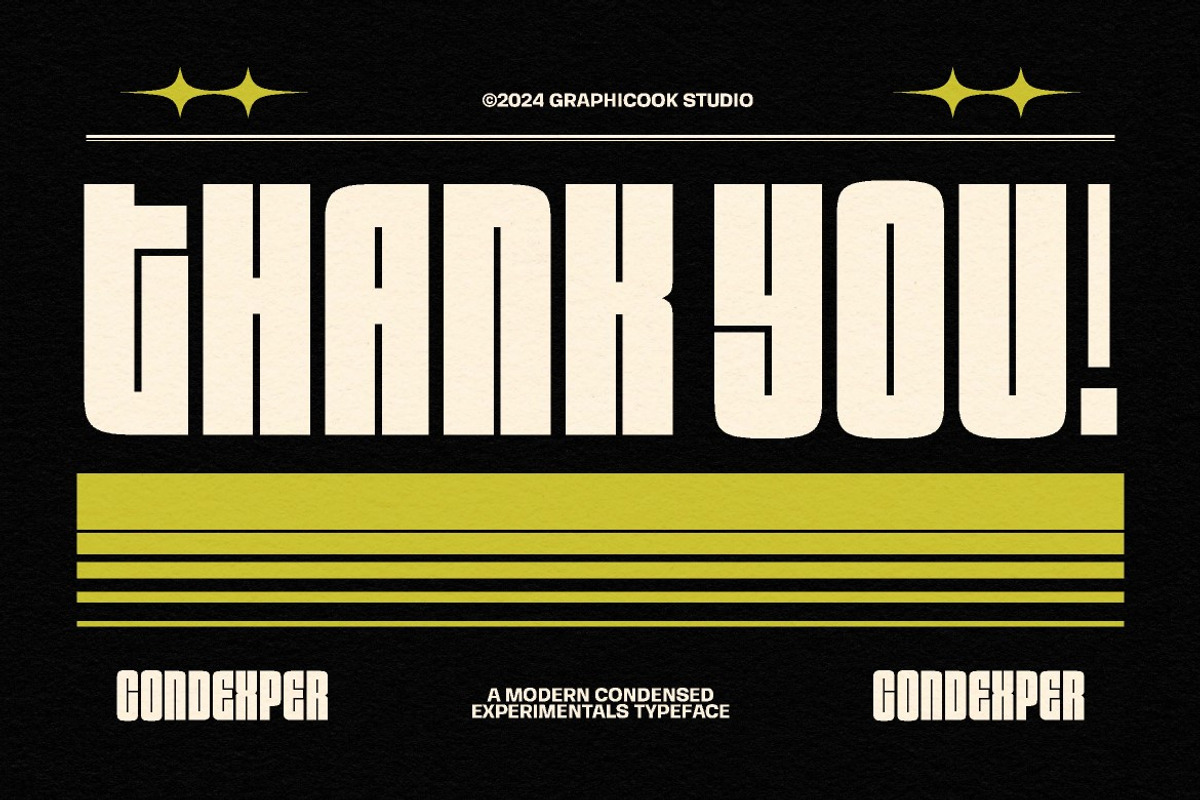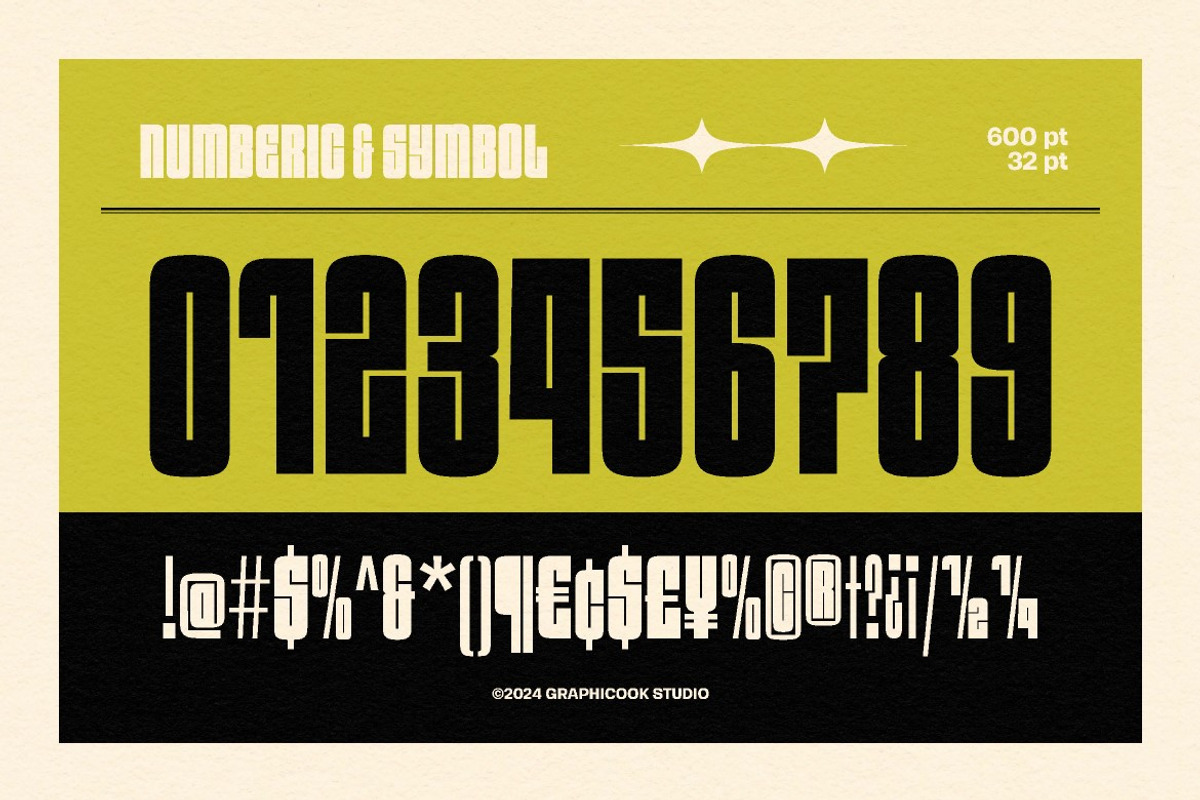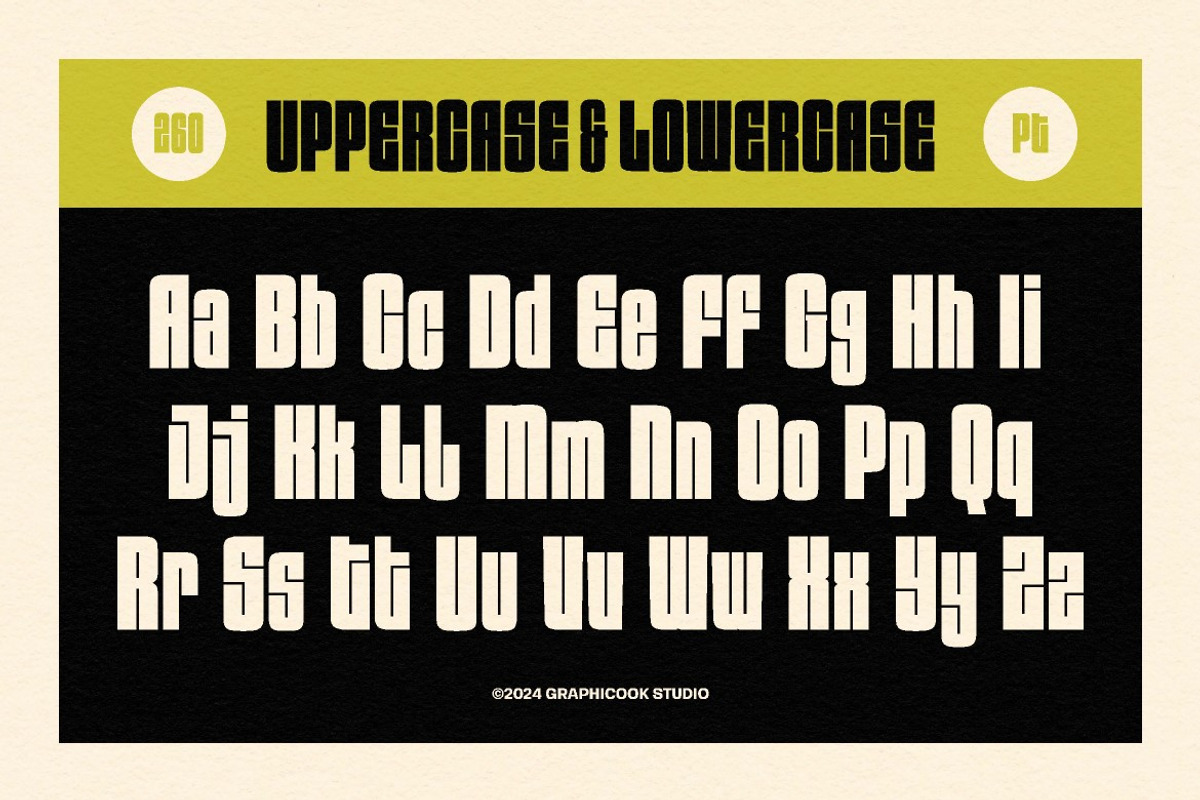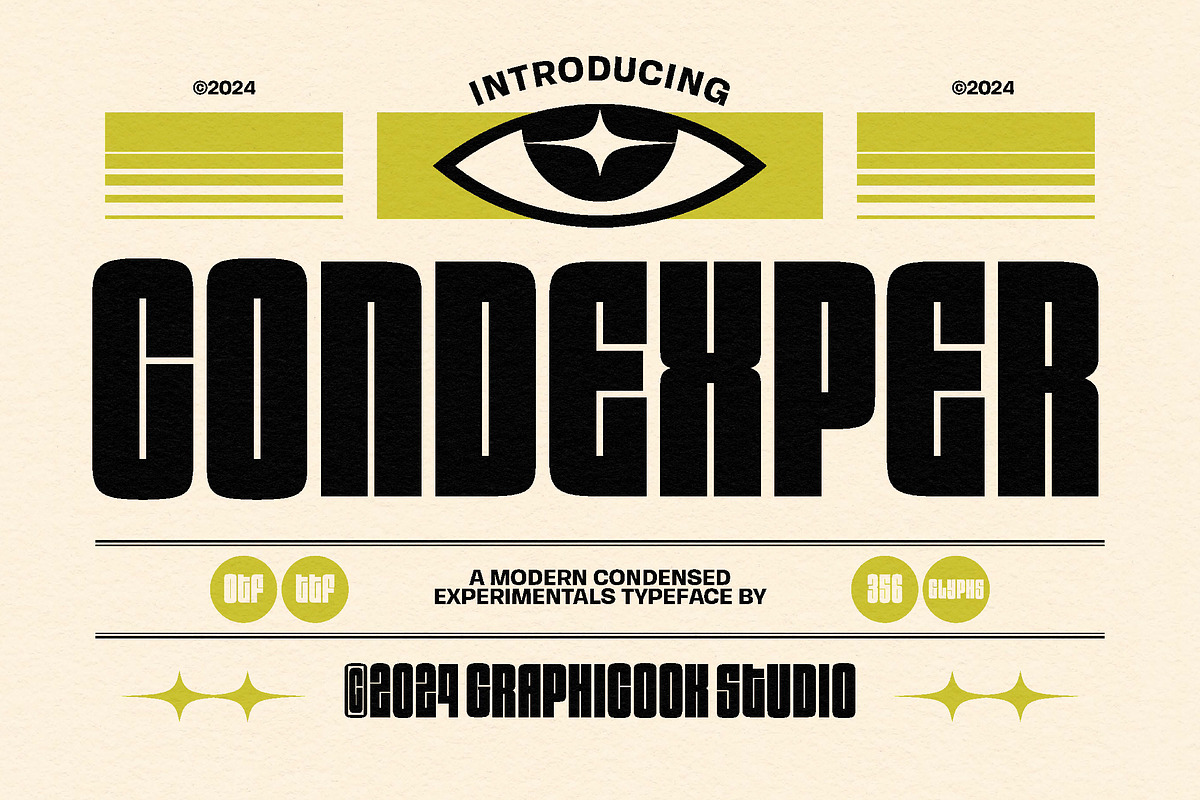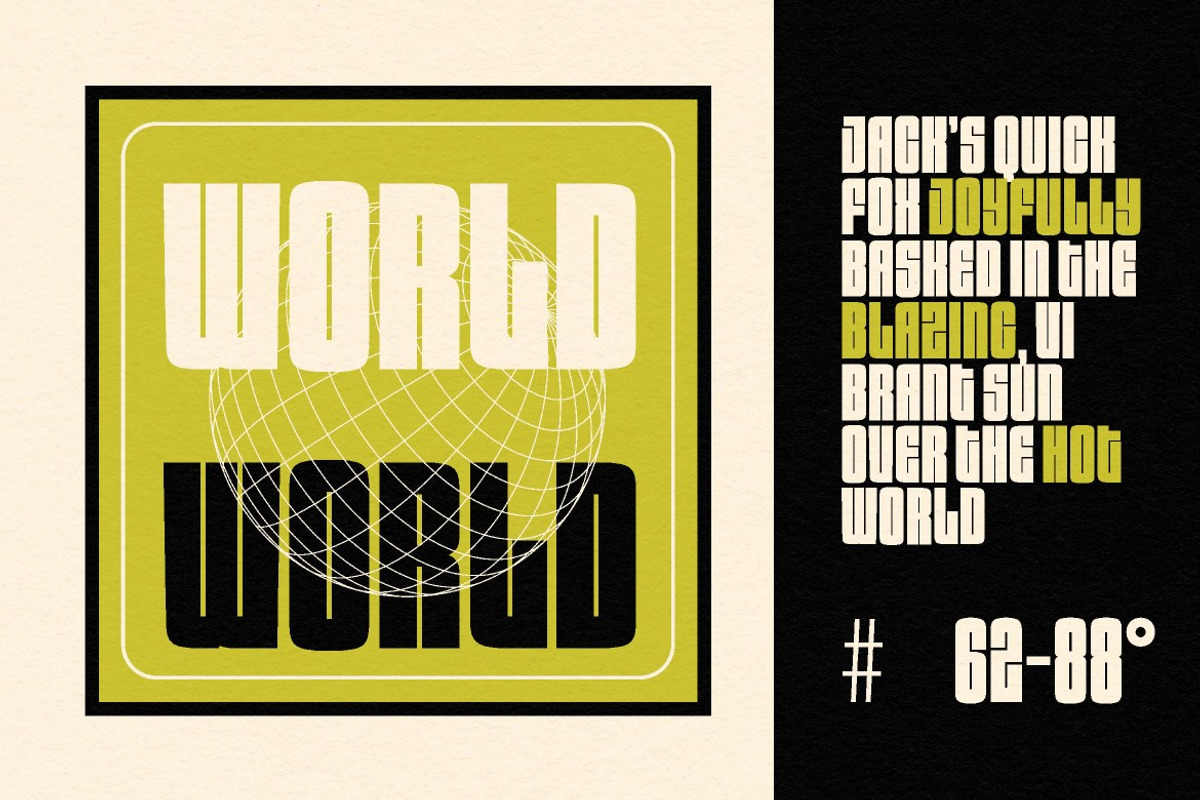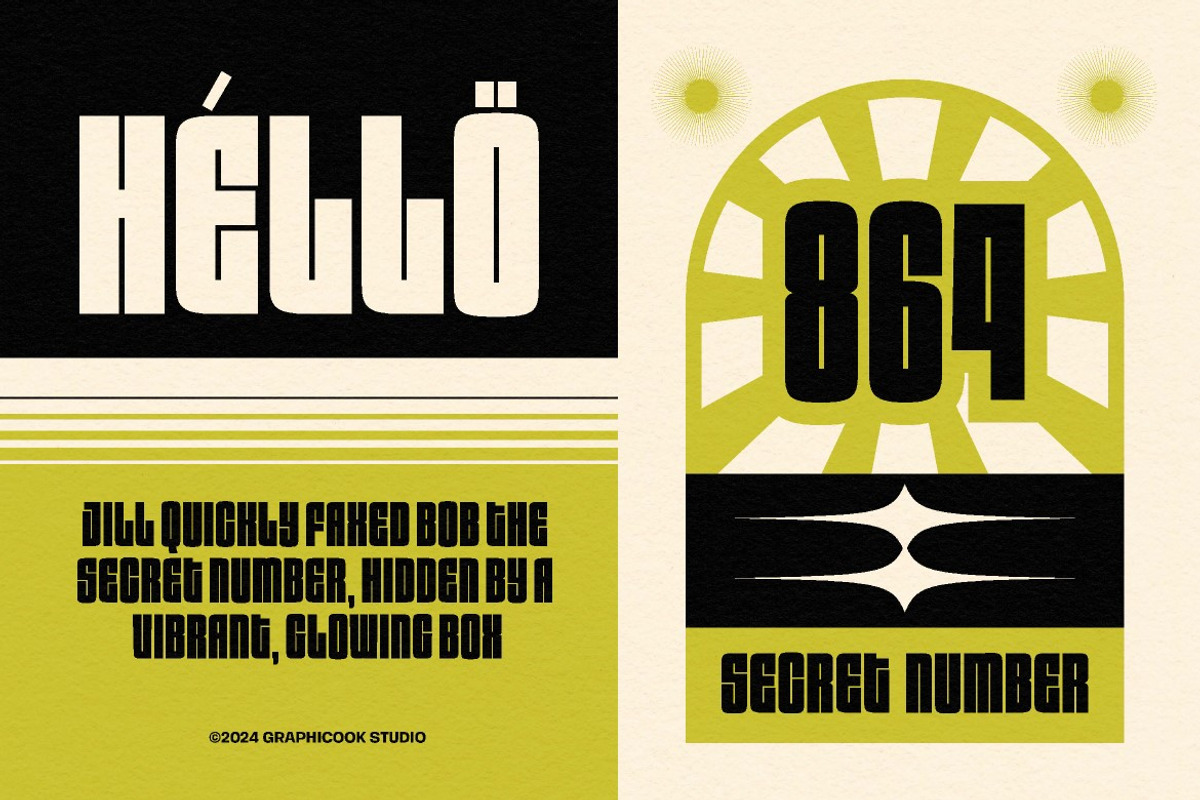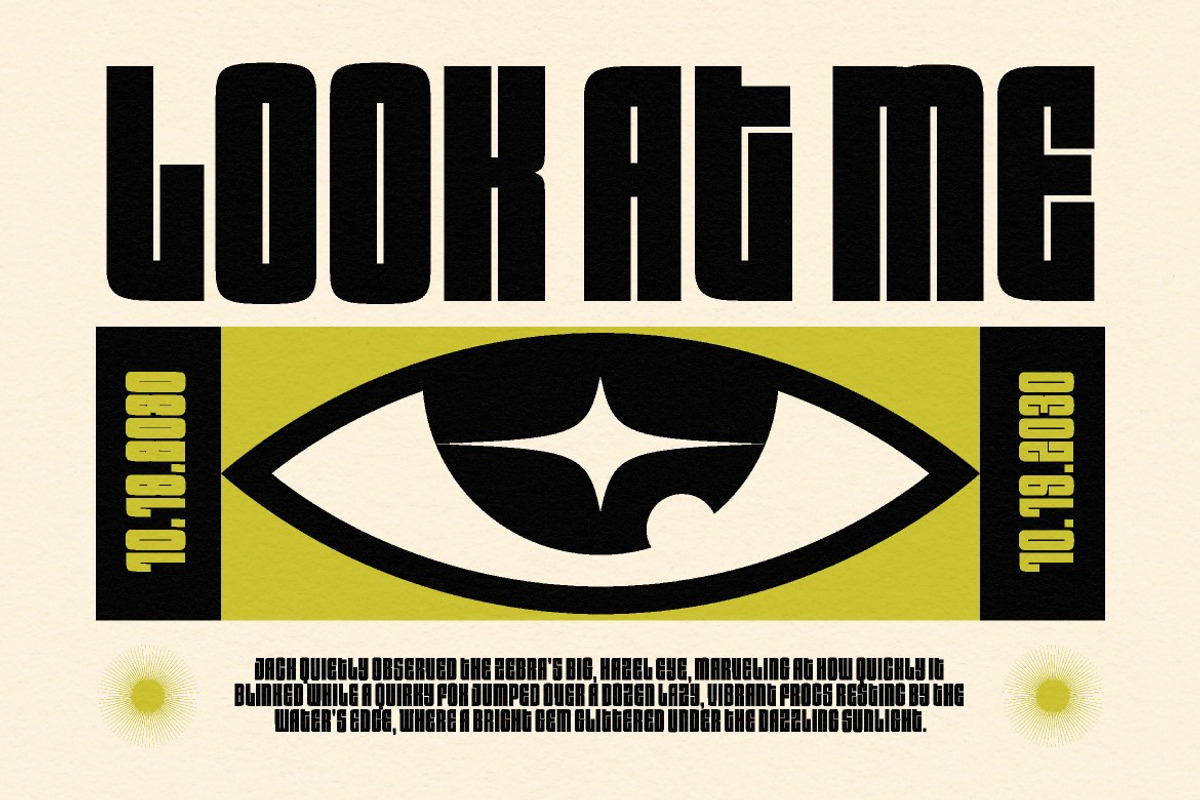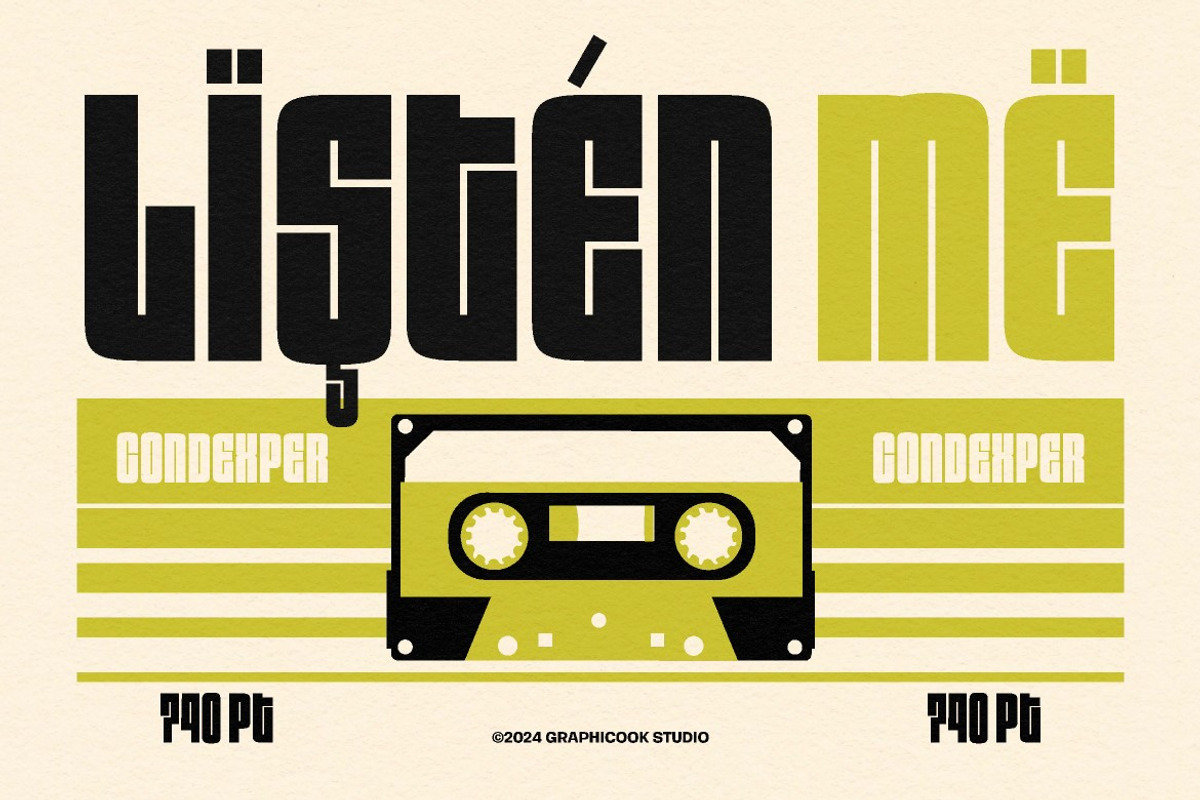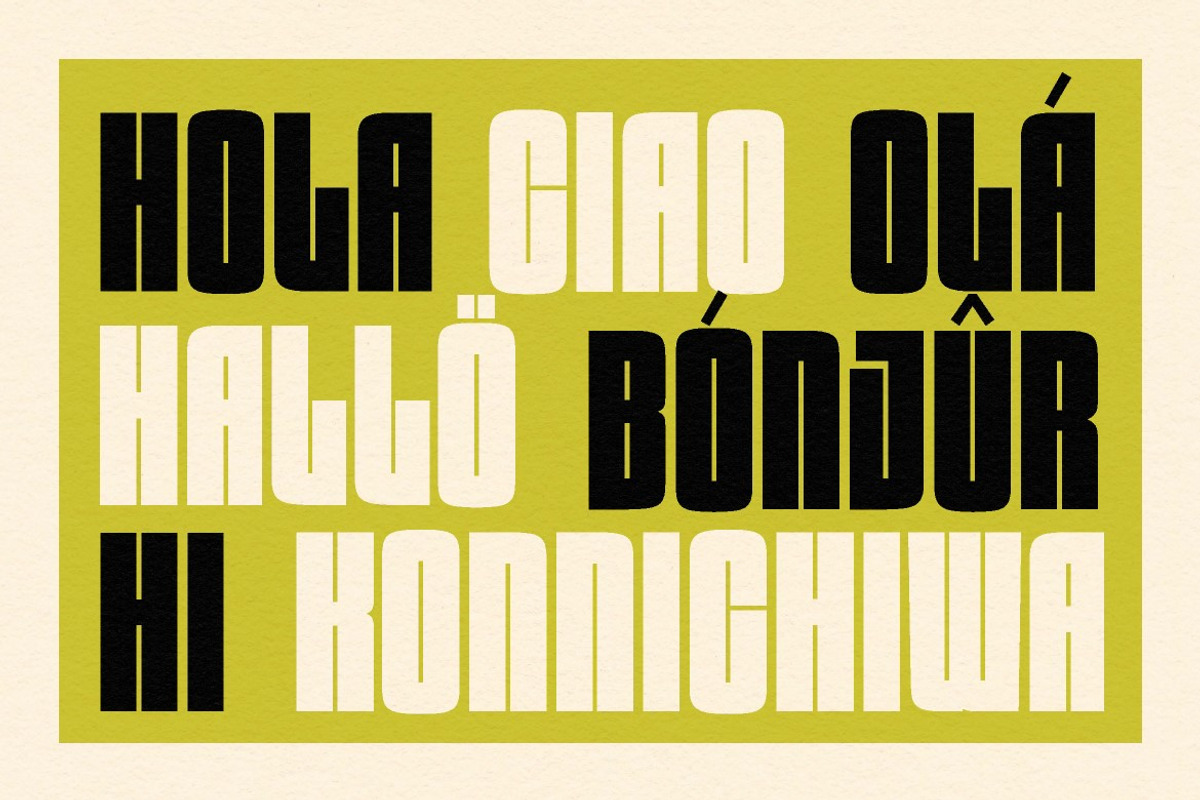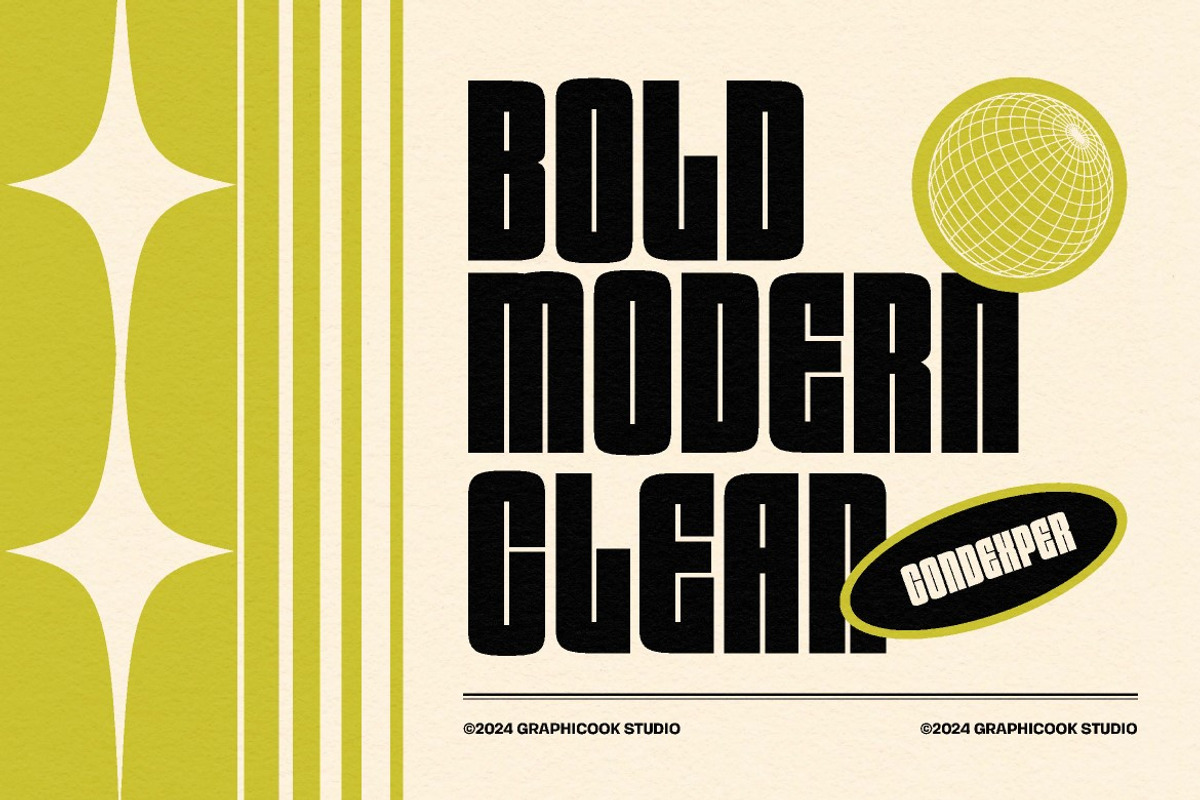
Condexper
Condexper is a condensed experimental font with a modern retro style. Its unique typeface makes it perfect for headlines, social media, magazines, and posters.
Condexper is perfect for headlines, logotypes, magazines, packaging, quotes, movies, games, cover albums, book covers, and flyers, it's a perfect solution for creating eye-catching designs that stand out in any context.